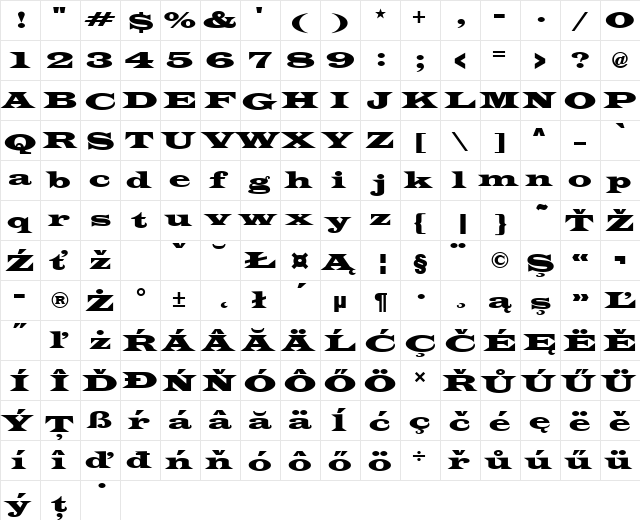
LatinWidDEE Regular
Design Context for LatinWidDEE Typeface
LatinWidDEE takes a measured approach to typography — its balanced proportions and neutral character make it a reliable workhorse for both digital and print work.
Pro Tip: Use LatinWidDEE in both headline and body roles to test its range before committing to a single application.